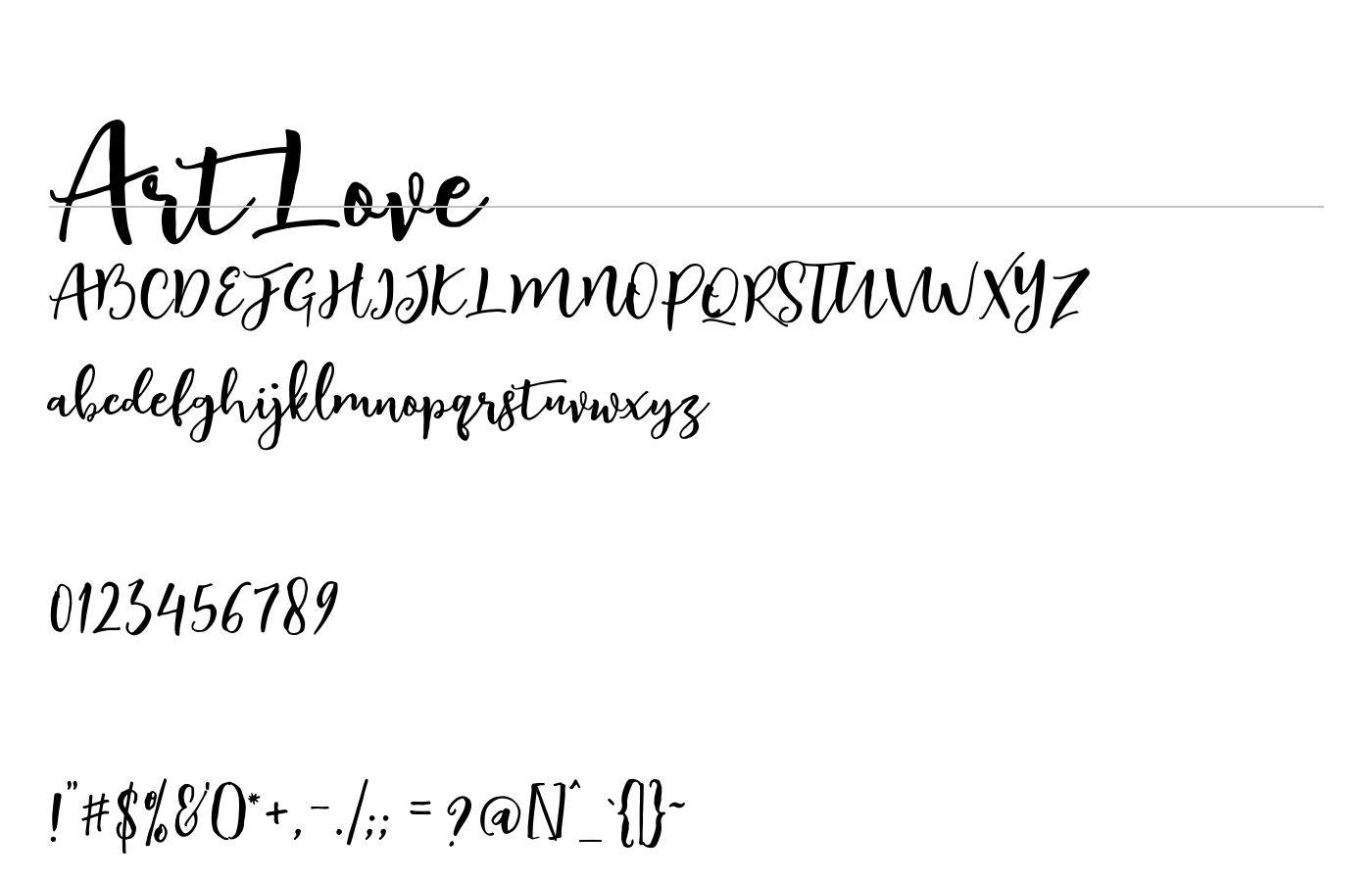
ArtLove is a playful and elegant handwritten script font with a casual, natural feel. Its varying stroke thickness and slightly irregular forms give it a charming, personal touch, making it perfect for creative projects, invitations, branding, and any design seeking a warm, approachable vibe. This font works well in logos, packaging, and headlines where a stylish yet friendly impression is desired.
ArtLove Font
About ArtLove Font